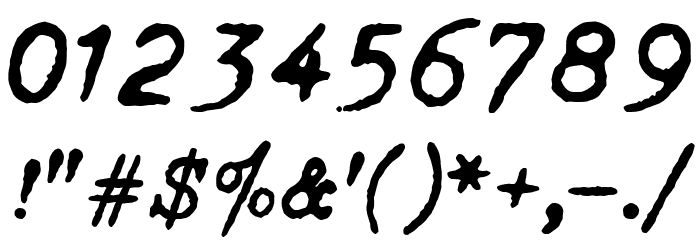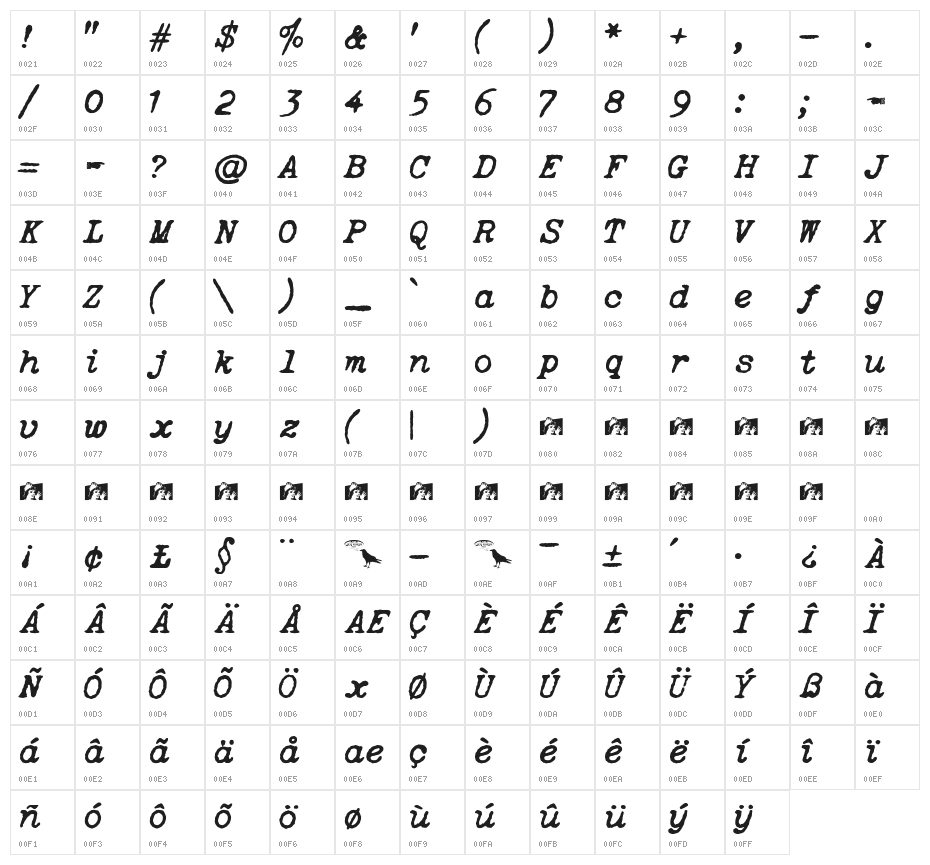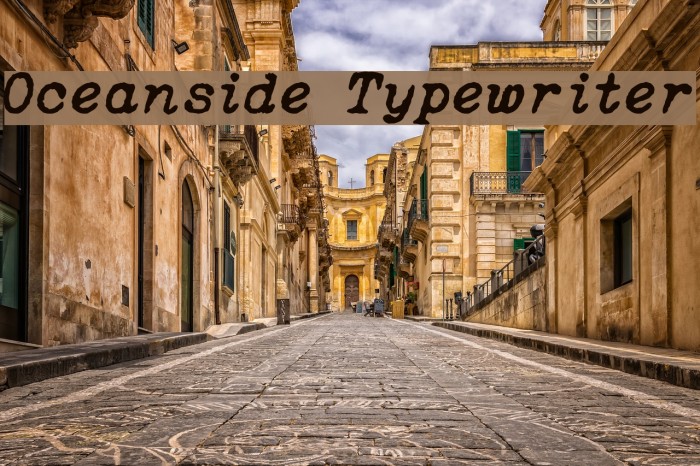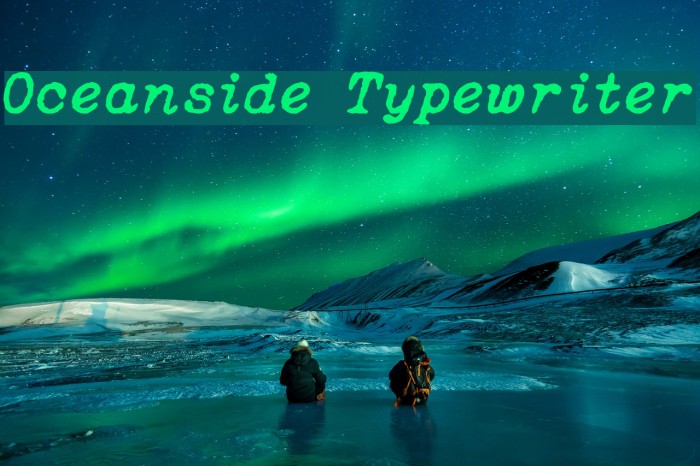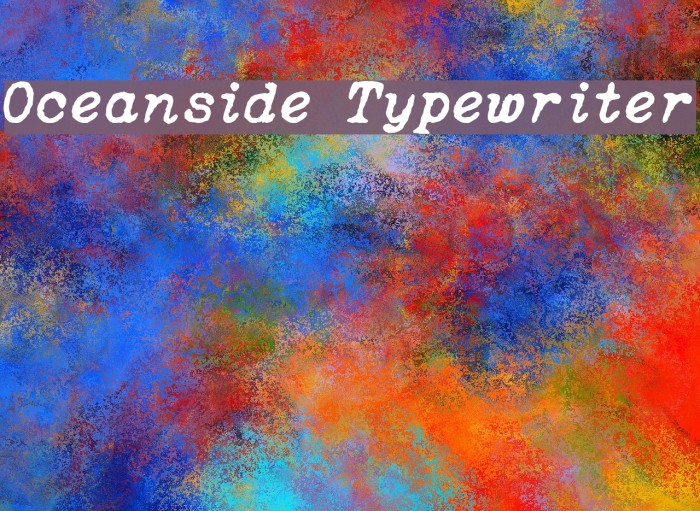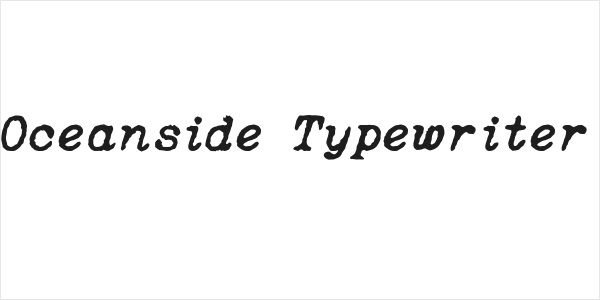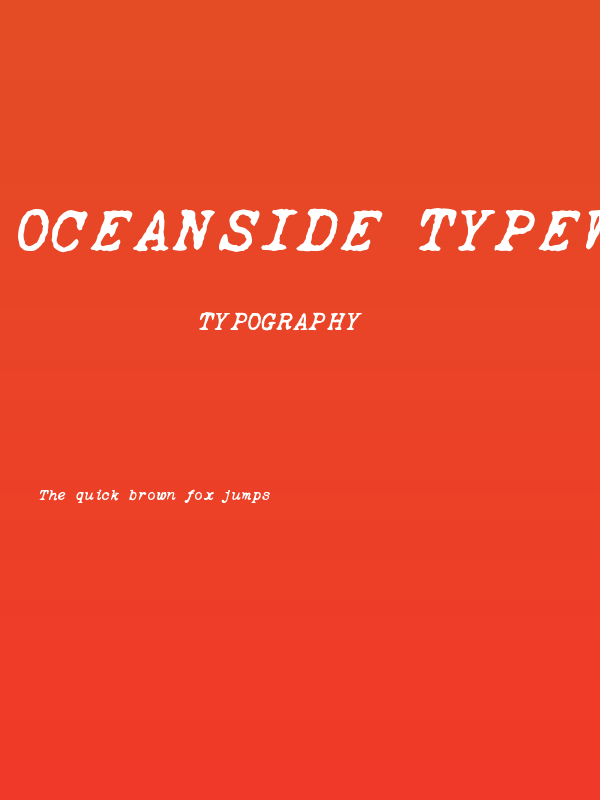
Oceanside Typewriter Font
Oceanside Typewriter Description
This typewriter-style font features a vintage, textured appearance reminiscent of old-school typewriters. The characters are slightly irregular, giving them a hand-crafted feel, while maintaining a consistent baseline. The uppercase and lowercase letters are well-defined, with a distinct slant that adds a dynamic quality. The numerals and special characters follow the same aesthetic, ensuring uniformity across the font. The overall look is both nostalgic and artistic, making it suitable for projects that require a touch of retro charm.
| Use Case | Headlines, Logos, Creative writing |
| Proposed Projects | Ideal for retro-themed designs, vintage posters, creative writing projects, and artistic branding. |